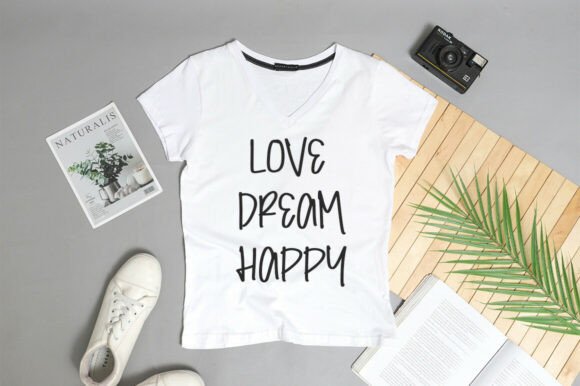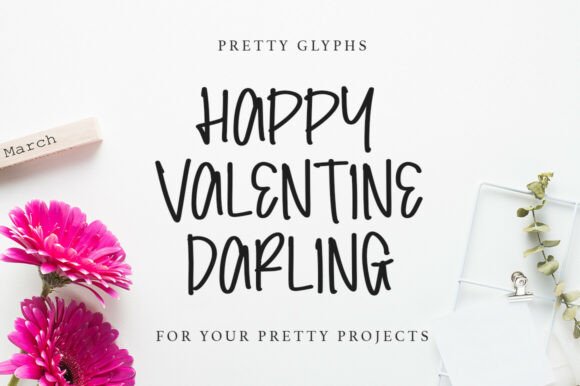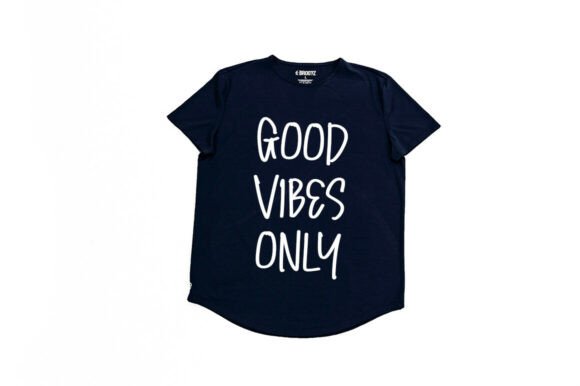
Unleash Your Creativity with the Funky Brush Font
Remember that moment when you finally found the perfect font to match your brand’s personality? The one that made your designs pop and left a lasting impression on your audience? For many creatives, that moment is a game-changer. And if you’re one of them, you’ll love the Funky Brush Font – a bold, expressive typeface that’s about to take your designs to the next level.
This handwritten brush font is a masterclass in organic textures and natural brush strokes, giving your work an authentic hand-painted feel with a modern, playful twist. Whether you’re a seasoned designer or just starting out, the Funky Brush Font is the perfect addition to your toolkit – adding warmth, energy, and character to any project that needs a little extra oomph.
Funky Brush Font Key Features
- Unique Characteristics: Hand-drawn, brush-style font with a fun, playful feel; perfect for creative projects, logos, and branding
- Character Set: Includes a wide range of characters, including Latin, Cyrillic, and Greek alphabets
- Font Style: Offers multiple font styles, including regular, bold, italic, and bold-italic
Funky Brush Font Review
I recently had the chance to work with the Funky Brush Font, and I’m here to give you my honest take on this font. Overall, I think it’s a solid choice for certain projects, but it’s not without its limitations.
- Unique, hand-drawn feel that adds a touch of personality to designs
- Versatile – can be used for a wide range of projects, from posters to logos
- Customizable – comes in various weights and styles to suit different design needs
- Limited legibility at small font sizes – may be difficult to read in certain contexts
- Can be overwhelming if used excessively – best used in moderation to avoid visual clutter
- Not suitable for formal or professional designs – may come across as too playful or casual
The Funky Brush Font is a fun, energetic font that’s perfect for projects that need a bit of flair. While it’s not the most versatile font out there, it’s a great choice for designers who want to add some personality to their designs. Just be mindful of its limitations, and use it wisely.
The Funky Brush Font is perfect for:
- Designing children’s products and materials.
- Creating unique and creative typography effects.
- Adding a playful touch to presentations and documents.
Alternatives to Funky Brush Font
Great Vibes is a fun, handwritten font that’s perfect for adding a touch of whimsy to your designs. It’s great for use in social media posts, advertising, and other promotional materials where you want to convey a sense of playfulness and energy.
Compared to Funky Brush Font, Great Vibes has a more polished and refined feel, with more consistent letterforms and a wider range of weights and styles. It’s also more versatile, making it suitable for a wider range of design applications.
Alex Brush is a elegant, handwritten font that’s perfect for use in high-end branding, packaging, and other luxury design applications. It’s great for adding a touch of sophistication and refinement to your designs.
Compared to Funky Brush Font, Alex Brush has a more refined and sophisticated feel, with more intricate letterforms and a more subtle, hand-drawn look. It’s also more versatile, making it suitable for a wider range of design applications.
Pacifico is a beautiful, handwritten font that’s perfect for use in beach-themed designs, travel branding, and other outdoor-inspired applications. It’s great for adding a touch of relaxation and tranquility to your designs.